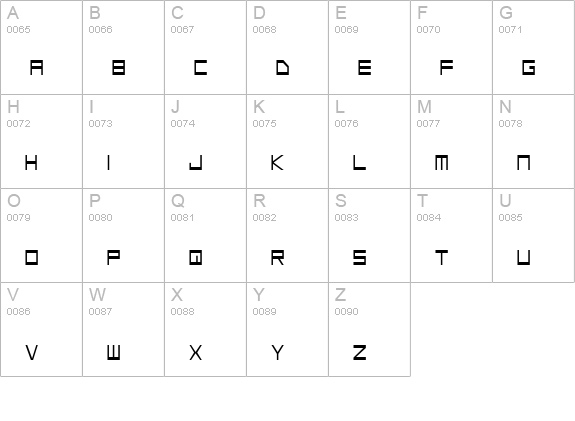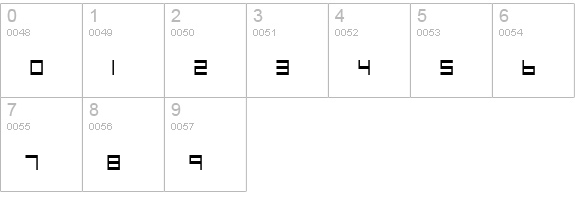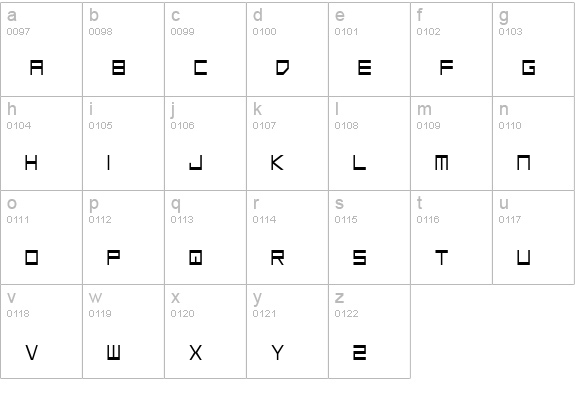
Low Gun Screen Condensed is a distinctive, condensed-width variant in the Low typeface family \xE2\x80\x94 well suited to design and typography projects.